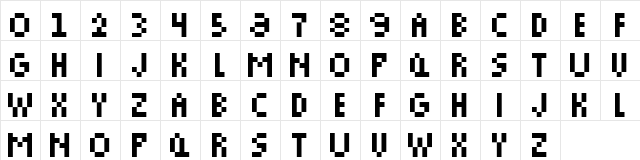
Pixie Five Regular
Design Context for Pixie Five Typeface
Pixie Five is a composed and adaptable typeface that performs quietly and consistently across a wide range of design contexts.
Pro Tip: Use Pixie Five in both headline and body roles to test its range before committing to a single application.